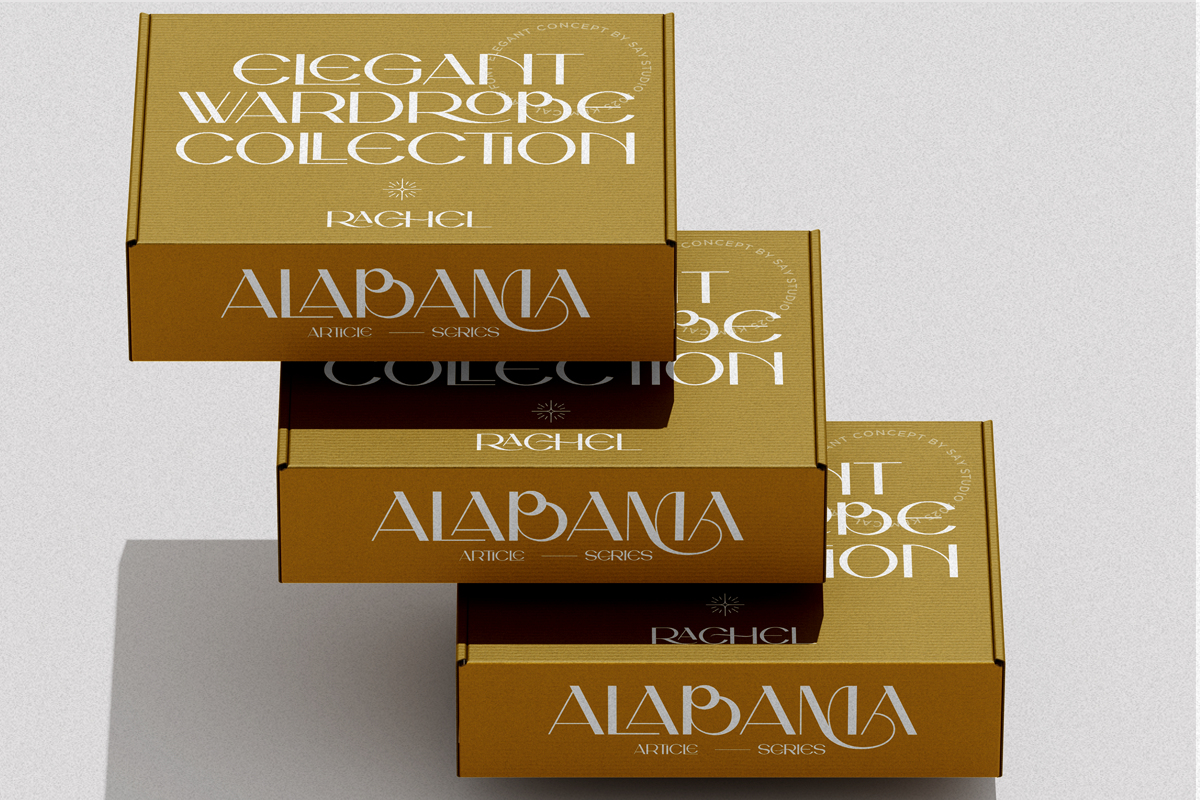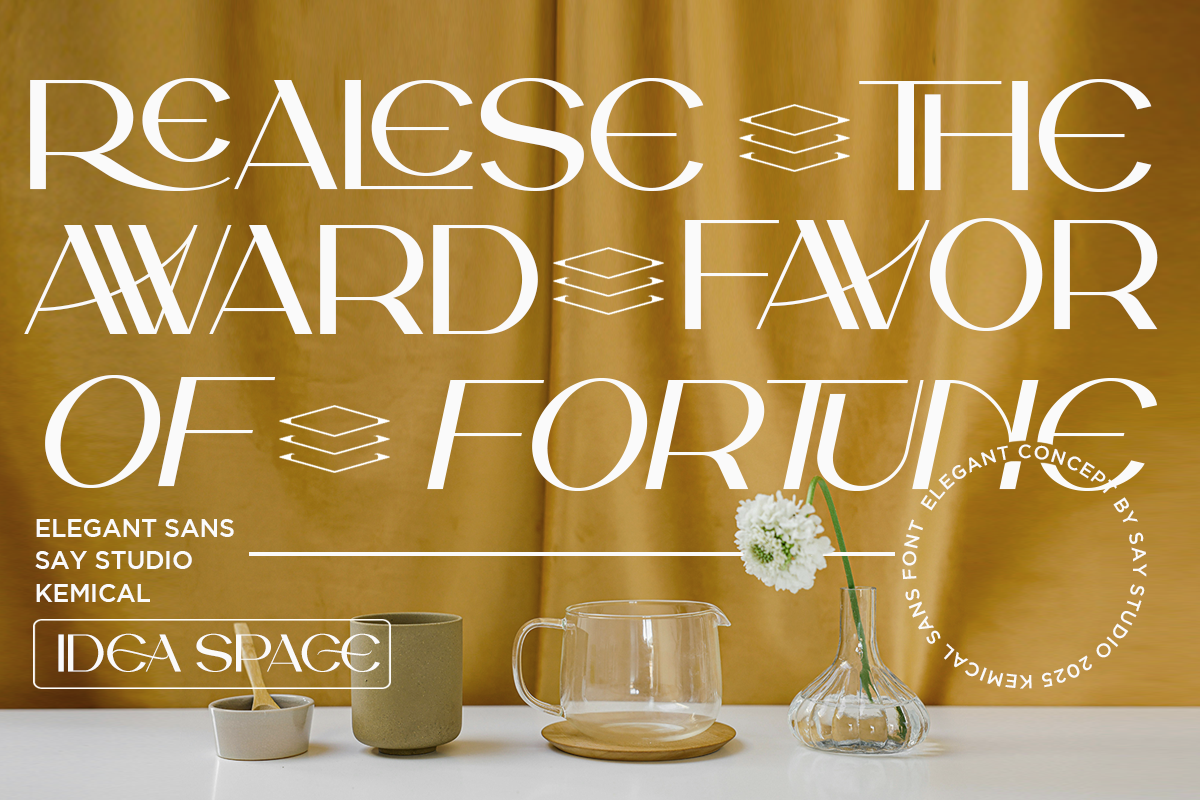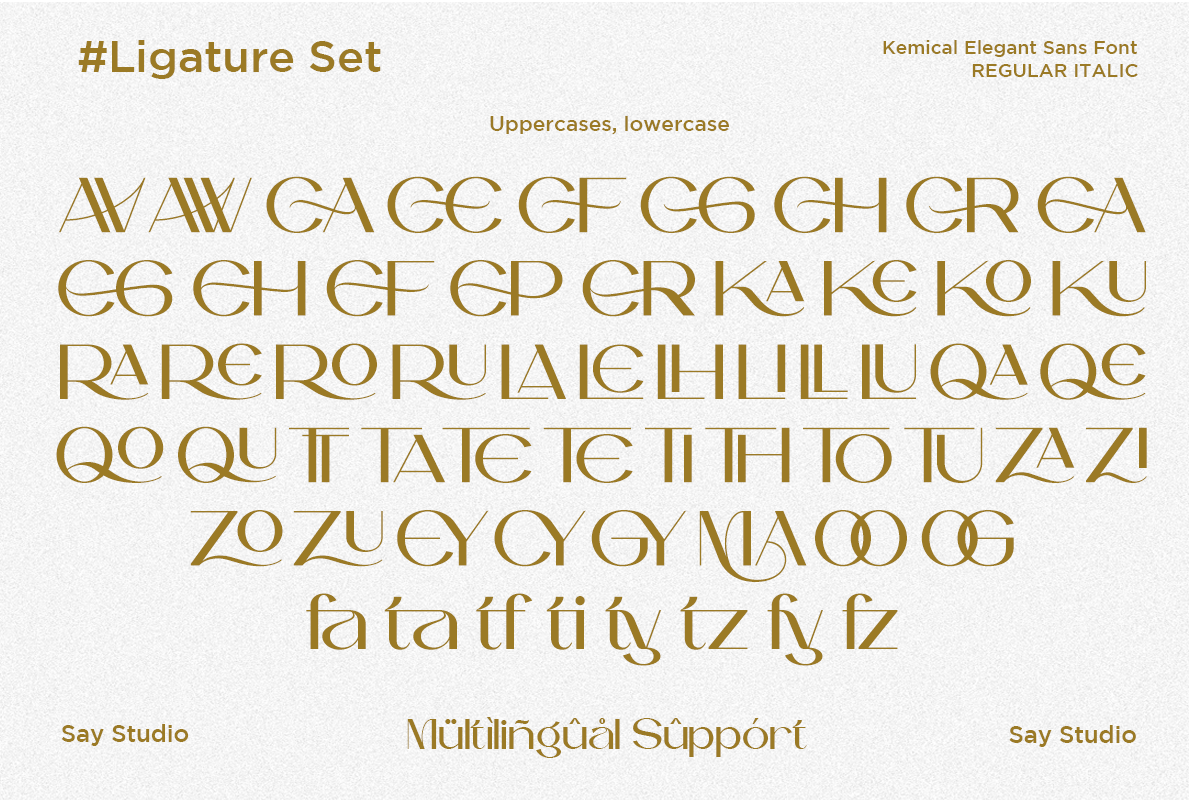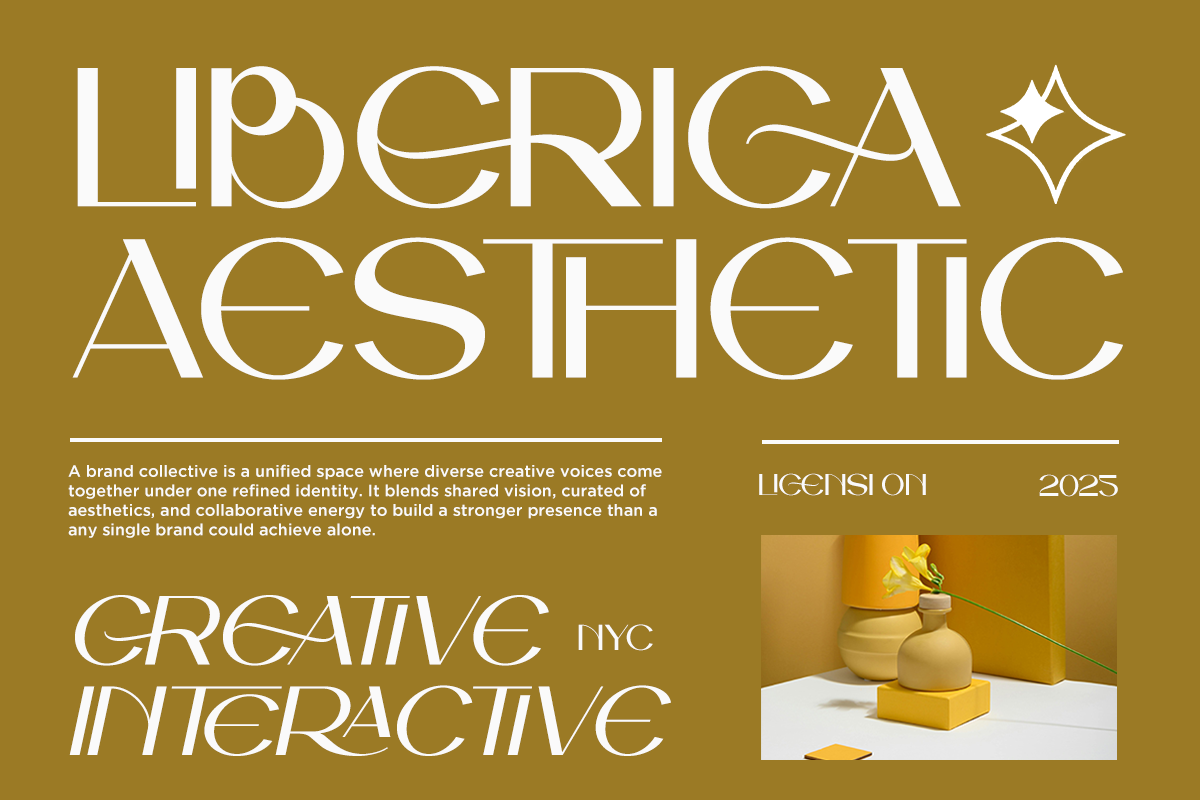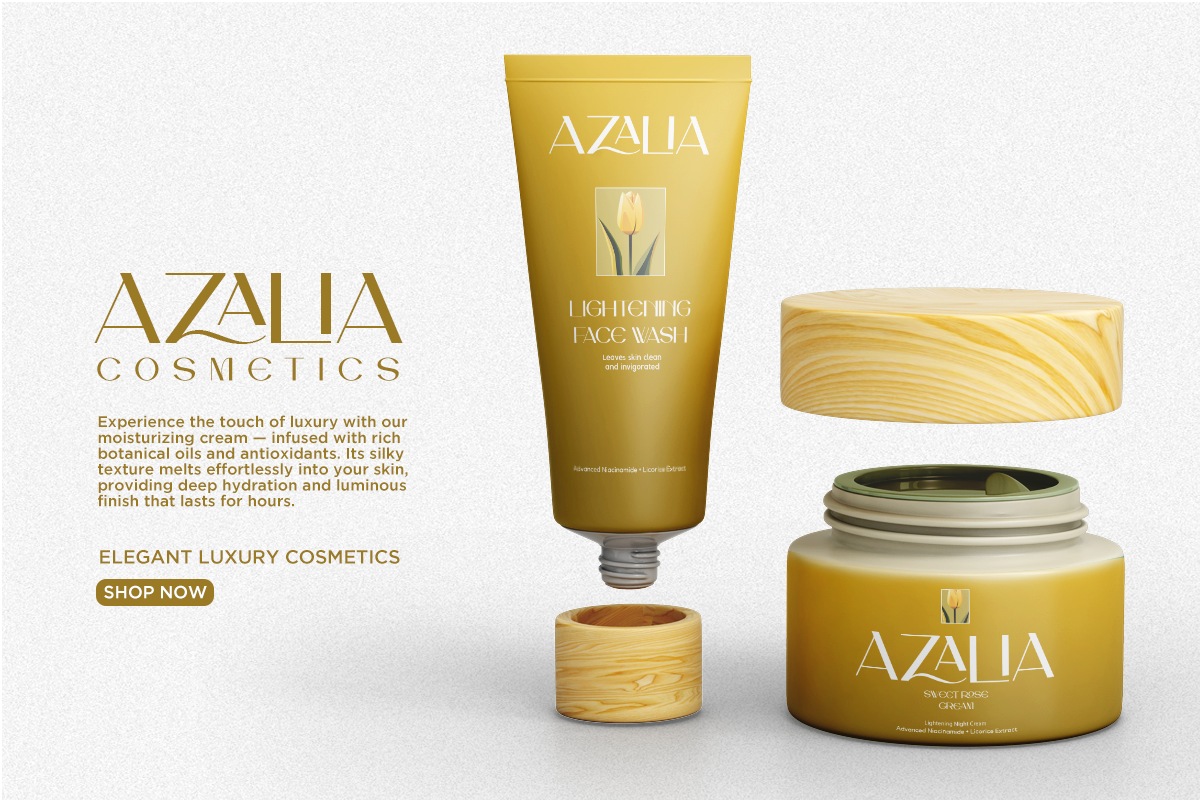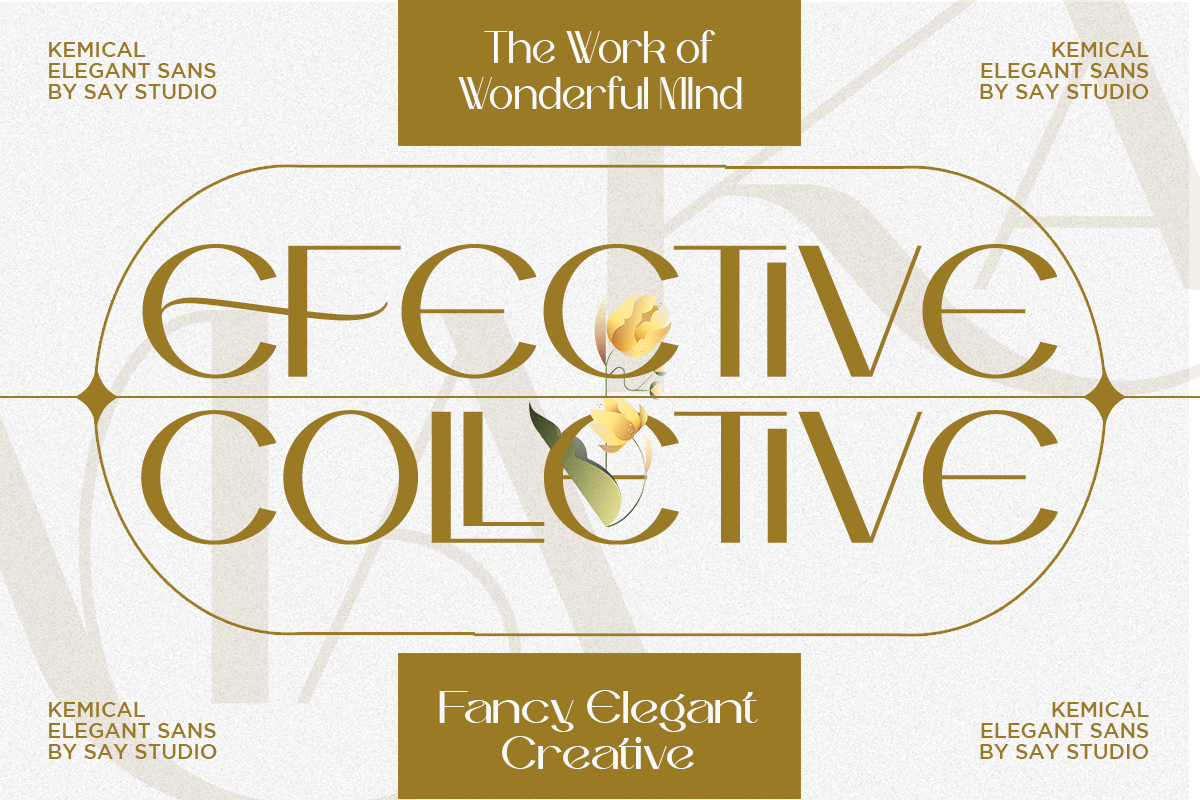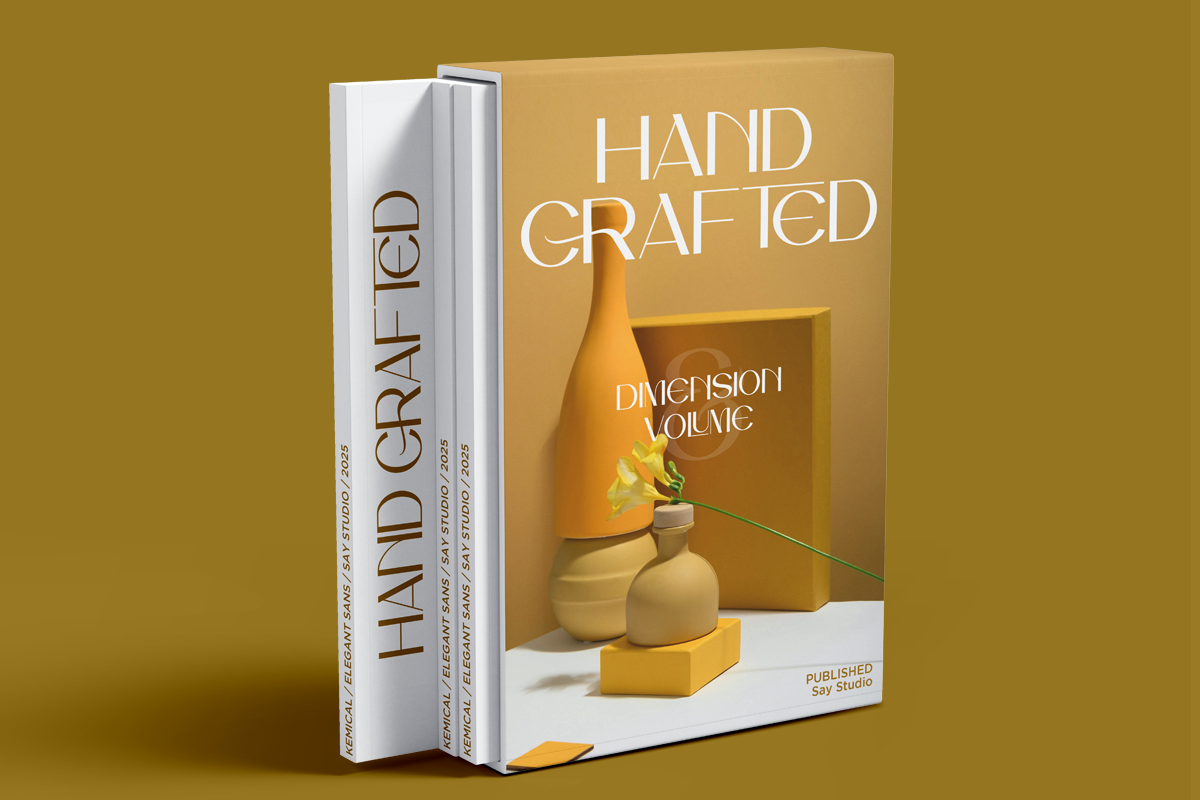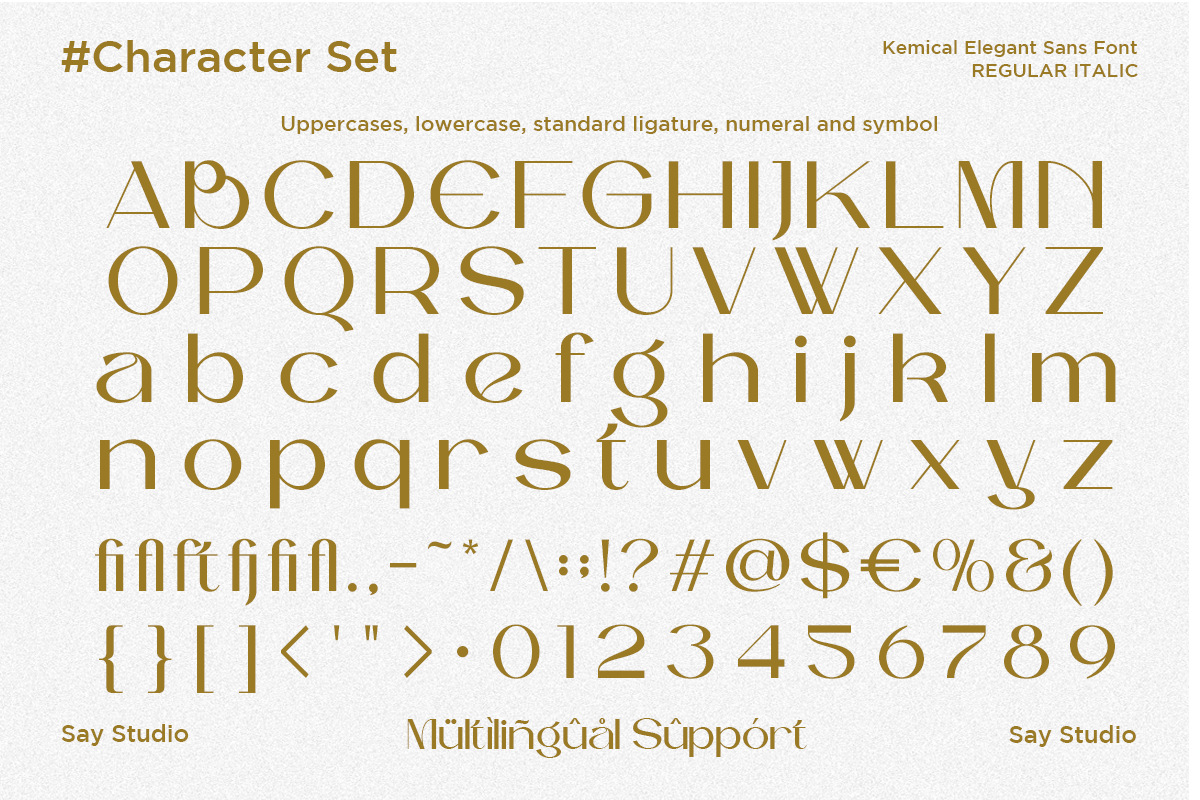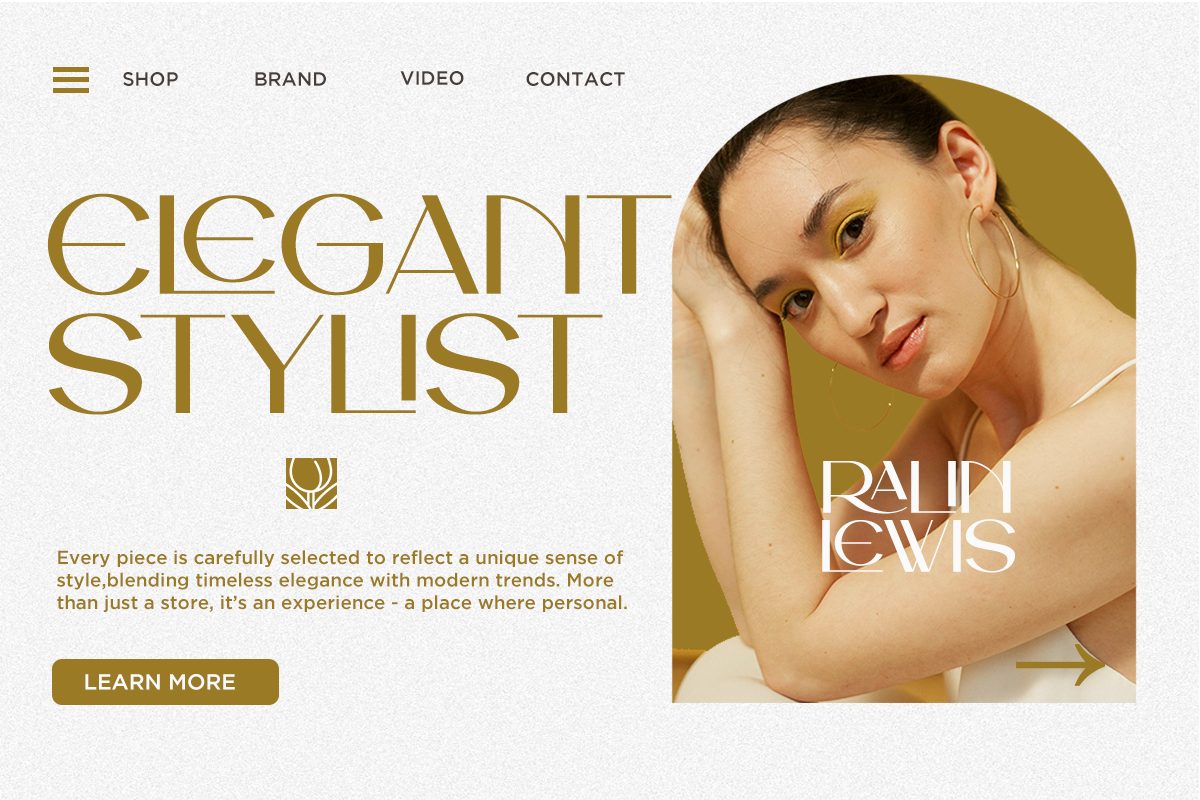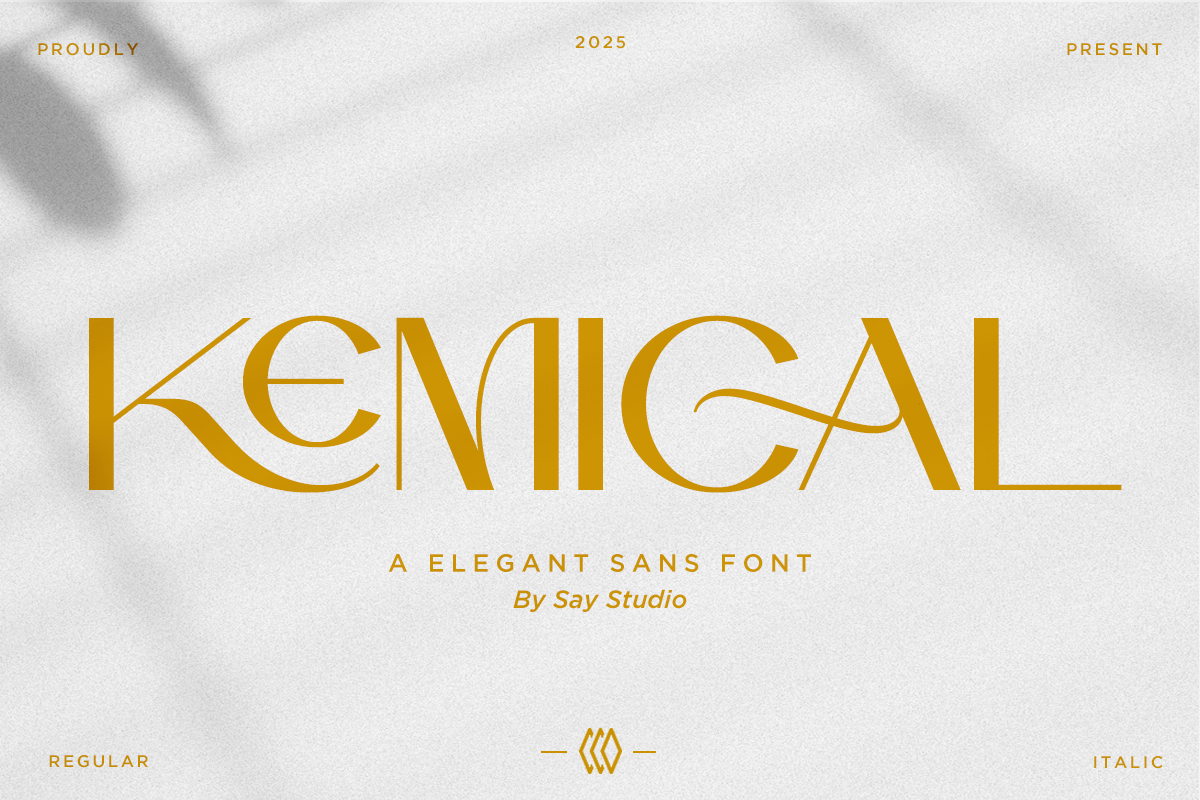
Kemical - Luxury Ligature Sans Font
Kemical is an elegant modern sans typeface that combines clean geometry with refined sophistication. Designed with stylish ligatures, balanced proportions, and contemporary letterforms, Kemical delivers a luxurious yet minimalist appearance that works beautifully across premium branding and modern visual communication. Its sleek aesthetic makes it ideal for designers looking to create timeless, high-end typography with exceptional readability.
Crafted for versatility, Kemical is perfect for luxury branding, fashion campaigns, cosmetic packaging, editorial layouts, websites, product labels, corporate identities, advertising, presentations, and social media content. Featuring multilingual support, elegant ligatures, numerals, punctuation, and OpenType features, it provides everything needed to build polished and professional designs across both digital and print media.
Whether you're creating sophisticated logos, premium packaging, modern editorials, minimalist websites, or luxury marketing materials, Kemical offers the flexibility and elegance required for impactful design. Its clean construction and refined details make it an excellent choice for designers seeking a modern sans serif that balances functionality with premium aesthetics.
Regular and Italic Style
Stylistic Ligature
Number, Symbol, and Punctuation